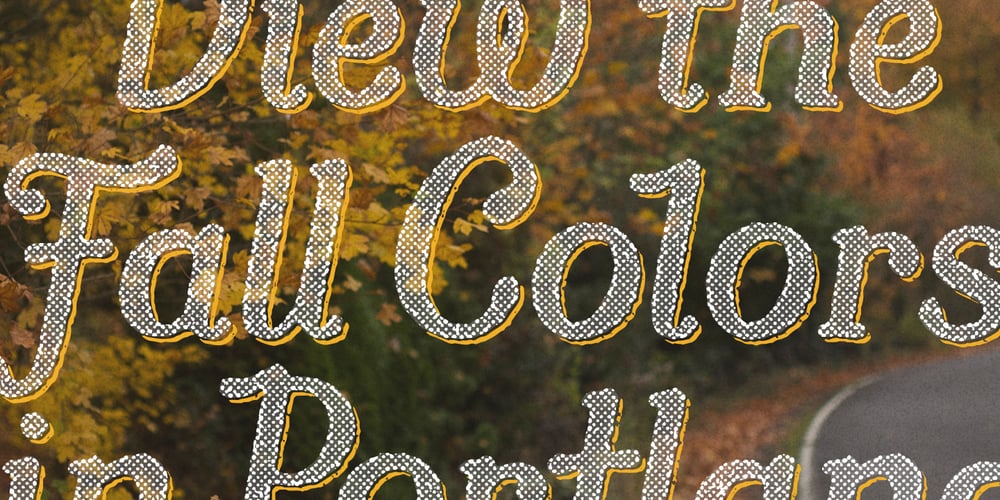
Butternut Font Family was designed by published by Ryan Keightley. Butternut contains 7 styles and family package options. Butternut’s origins can be traced back to handwriting in felt-tipped marker. Because of this, you’ll find a slight degree of roughness to the edges, yet a fluid softness to the letterforms themselves. As well as some weird, fun details here and there.